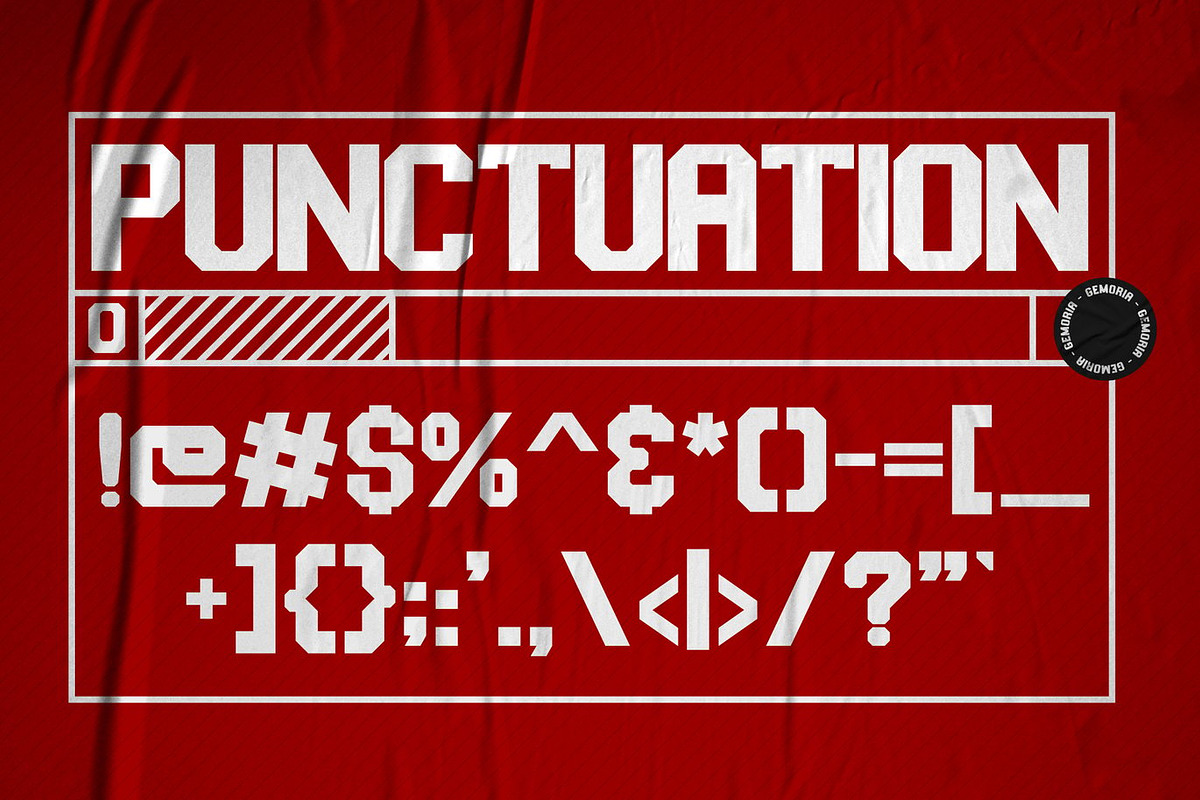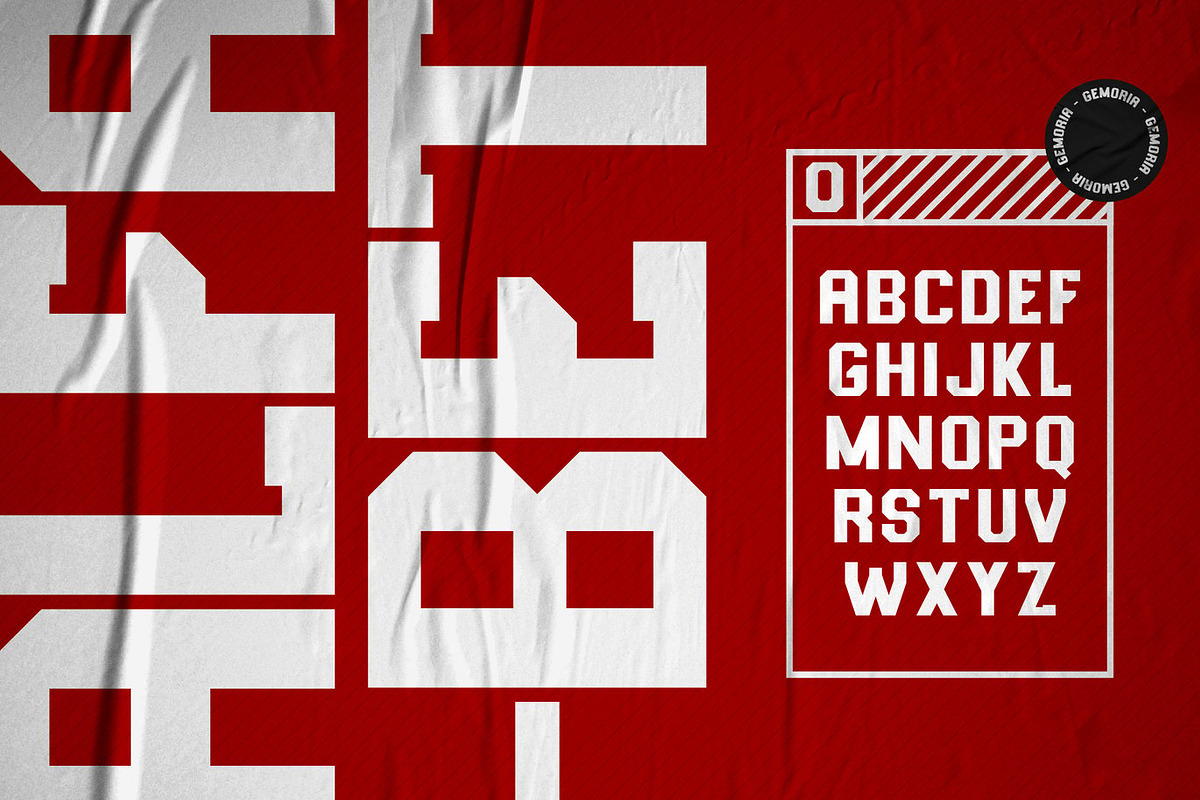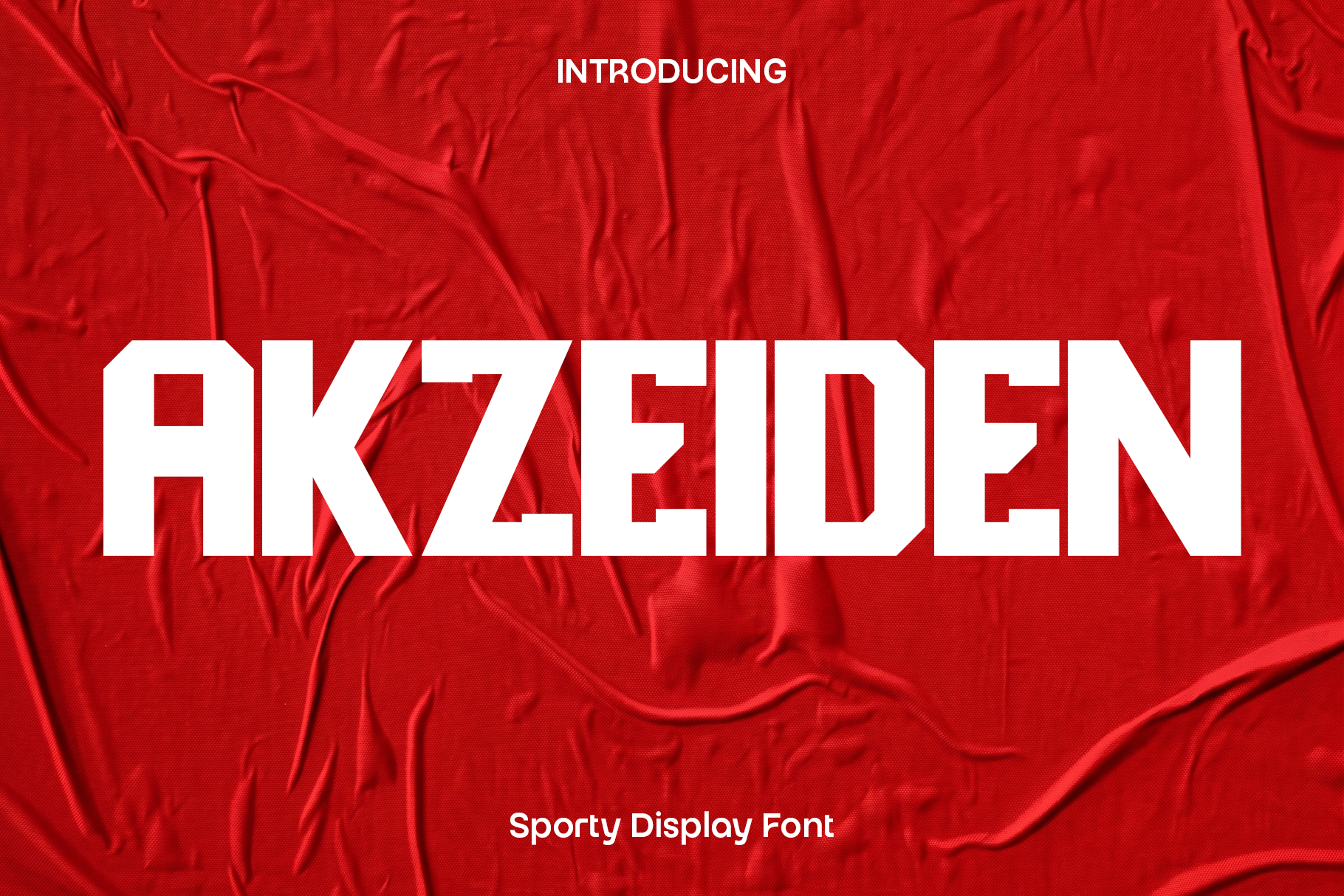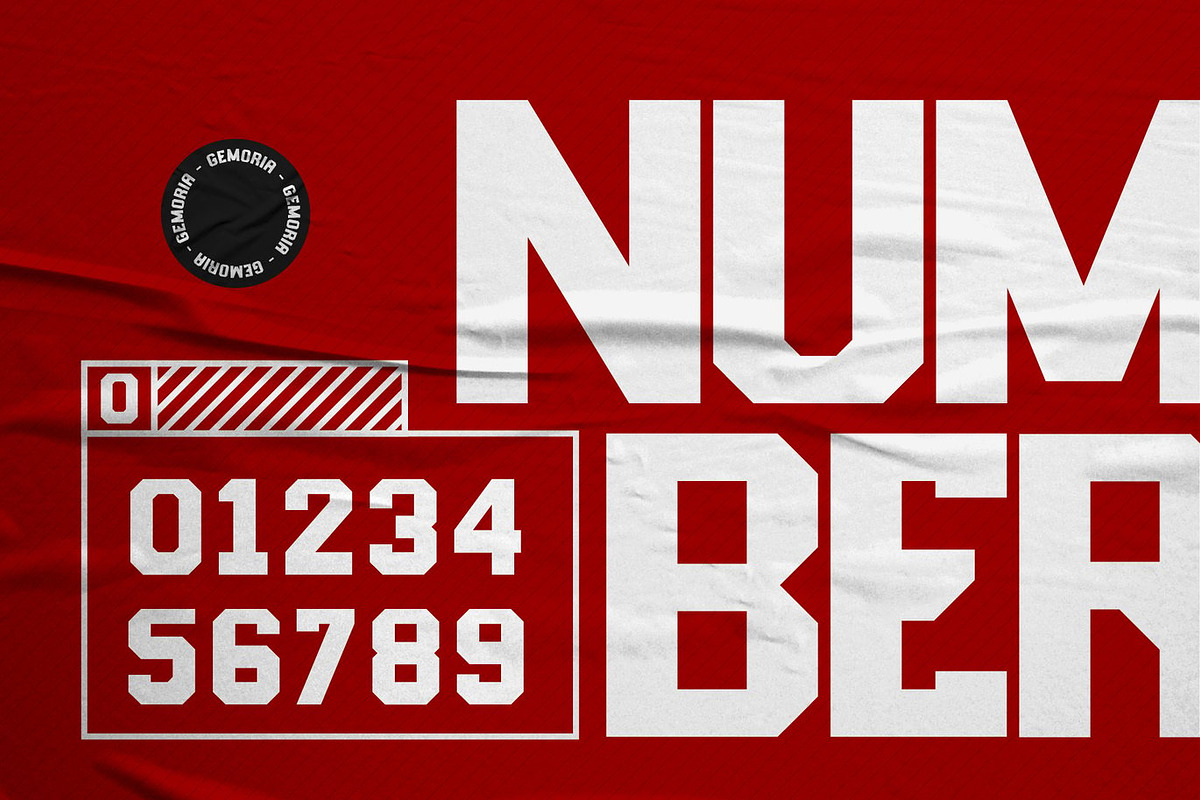
Akzeiden - Sports Display Font
Akzeiden is a bold and energetic sports display font designed to capture speed, motion, and competitive power. Featuring modern cutout details, sharp angles, and a strong dynamic slant, Akzeiden delivers a fast paced visual style that instantly commands attention. Inspired by modern sports branding, racing aesthetics, cycling culture, and futuristic athletic typography, this font creates a powerful and aggressive presence in every design.
Perfect for football match graphics, cycling events, automotive branding, esports visuals, gaming logos, monograms, sports apparel, posters, and action themed promotional materials, Akzeiden is built to stand out across both print and digital media. Its carefully crafted structure maintains excellent readability while still delivering the bold impact needed for modern headline typography.
Akzeiden was created for designers who want typography filled with energy, confidence, and movement. The sleek cutout elements and forward leaning forms create a sense of speed and performance, making your projects feel dynamic and professional. Whether used for sports branding or futuristic logo identities, this font transforms ordinary text into a visually powerful statement.
Its modern athletic design makes Akzeiden highly versatile for projects that demand strength, precision, and visual excitement. From racing inspired graphics to competitive gaming visuals, this font adds intensity and originality to every creative concept.
Akzeiden Font Features:
• Bold sports display style
• Modern cutout design details
• Dynamic slanted letterforms
• Uppercase and lowercase characters
• Numerals and punctuation
• Excellent readability for headlines and logos
• Perfect for football, cycling, automotive, gaming, and esports projects
• Suitable for print and digital applications